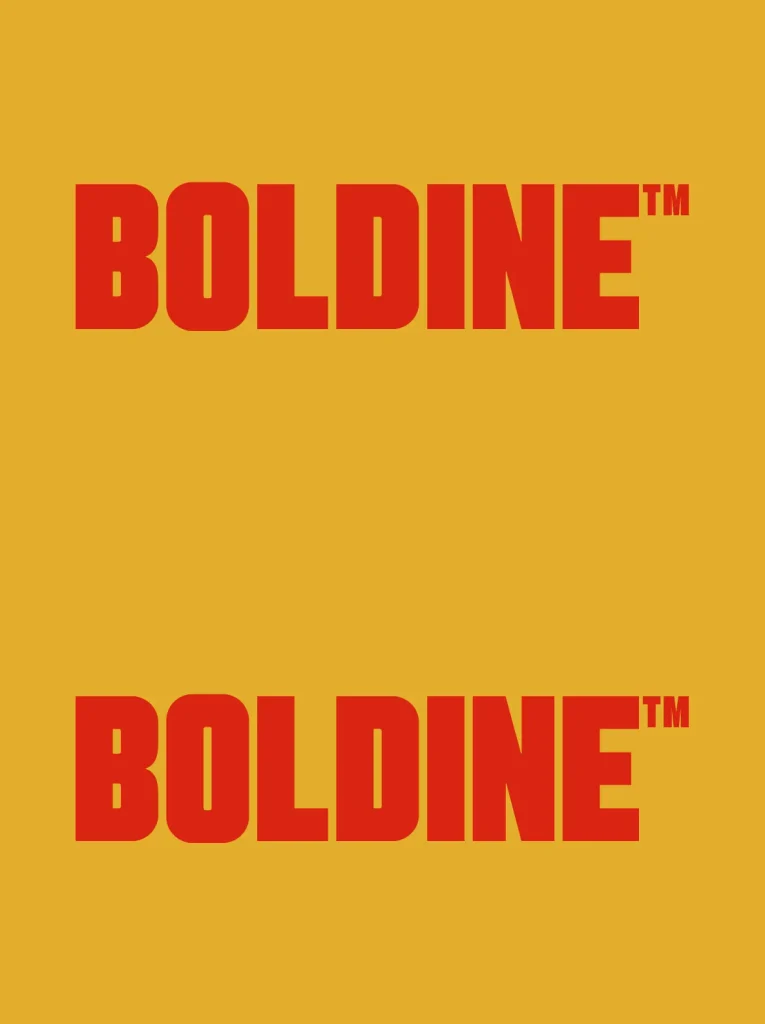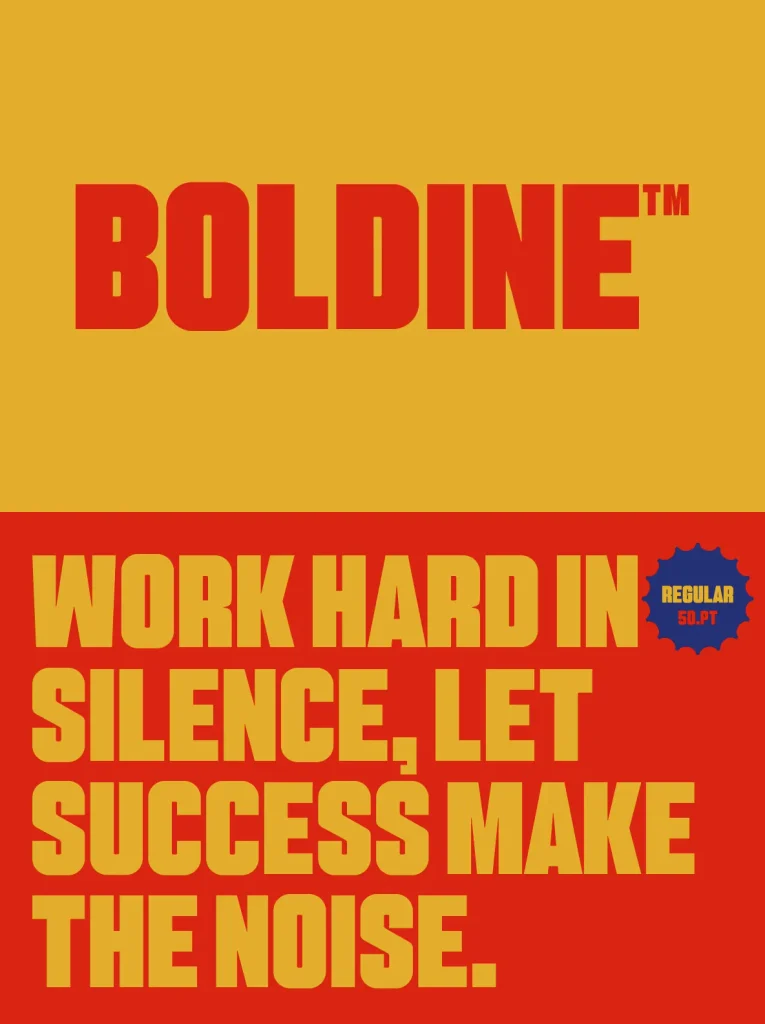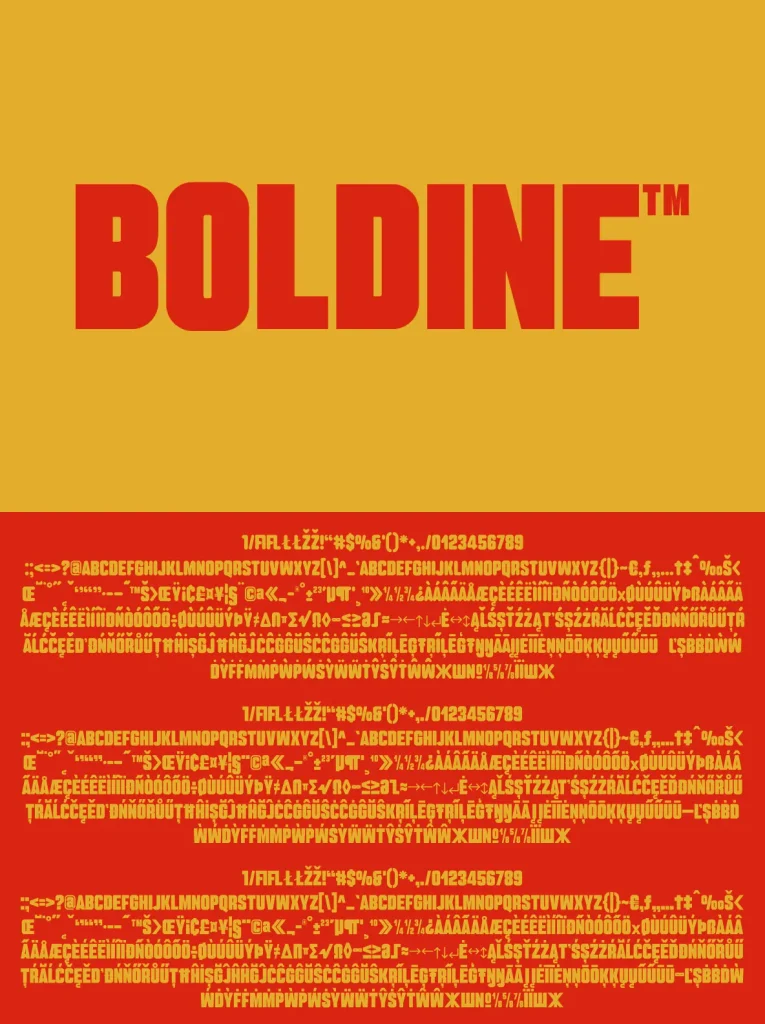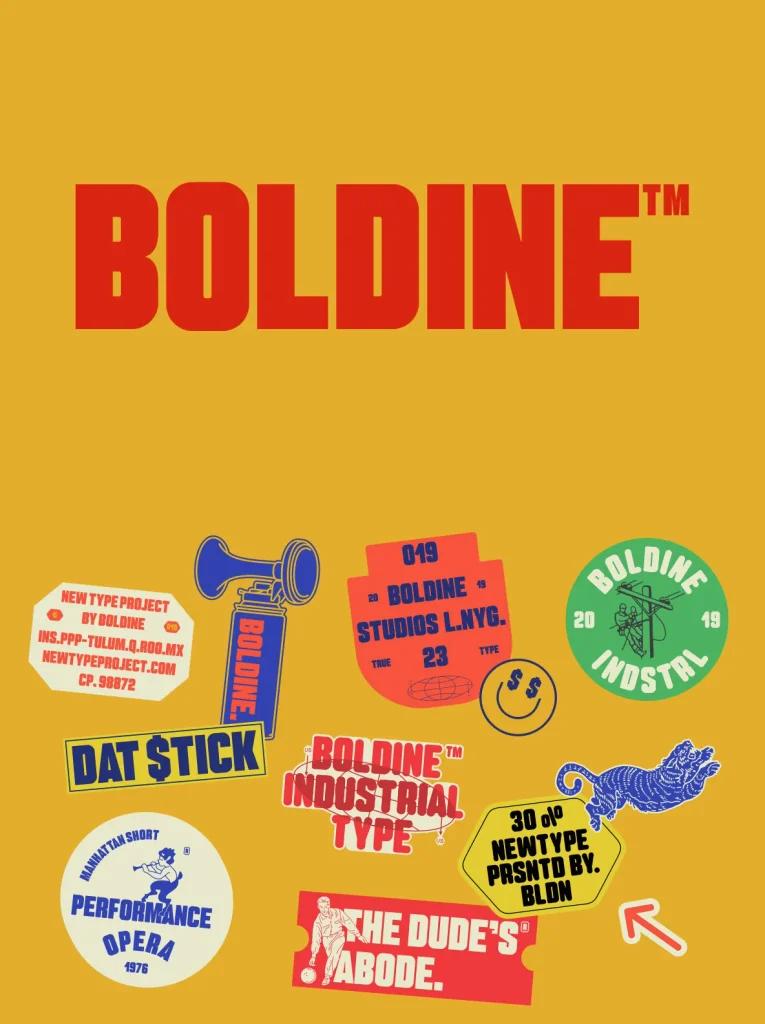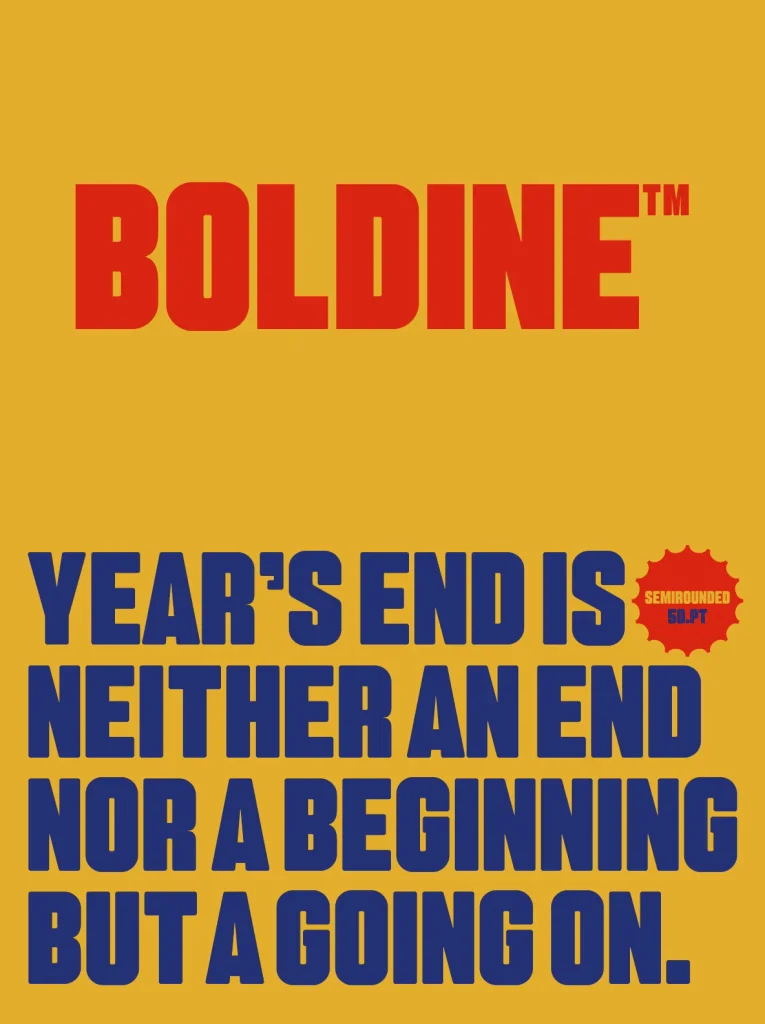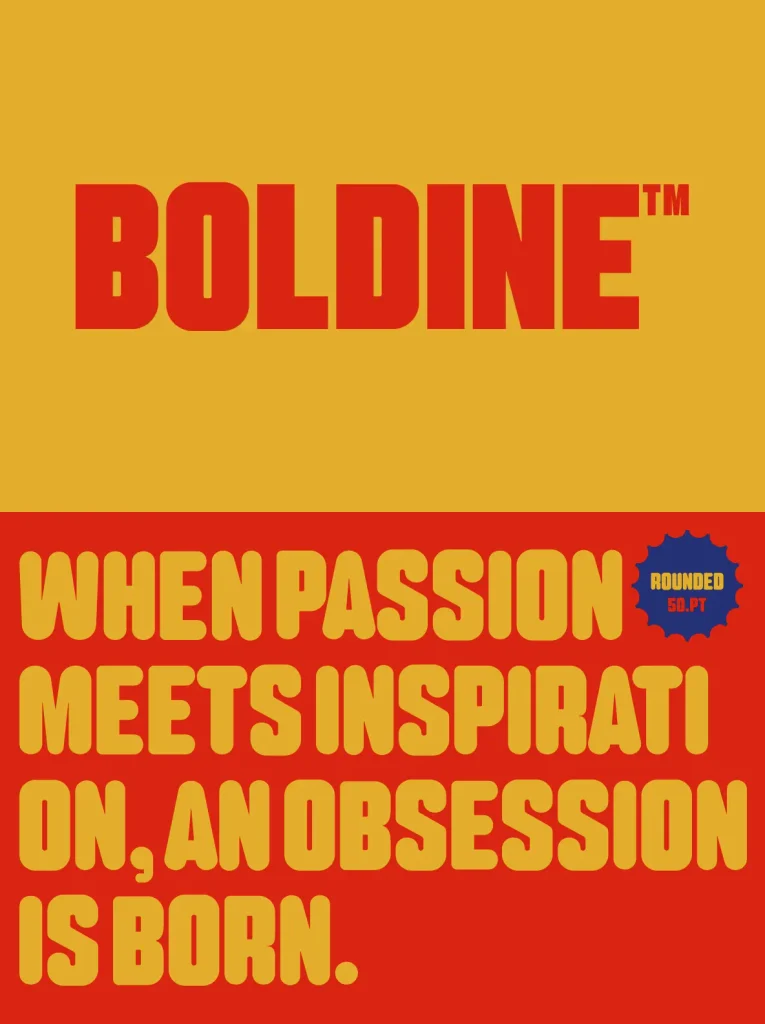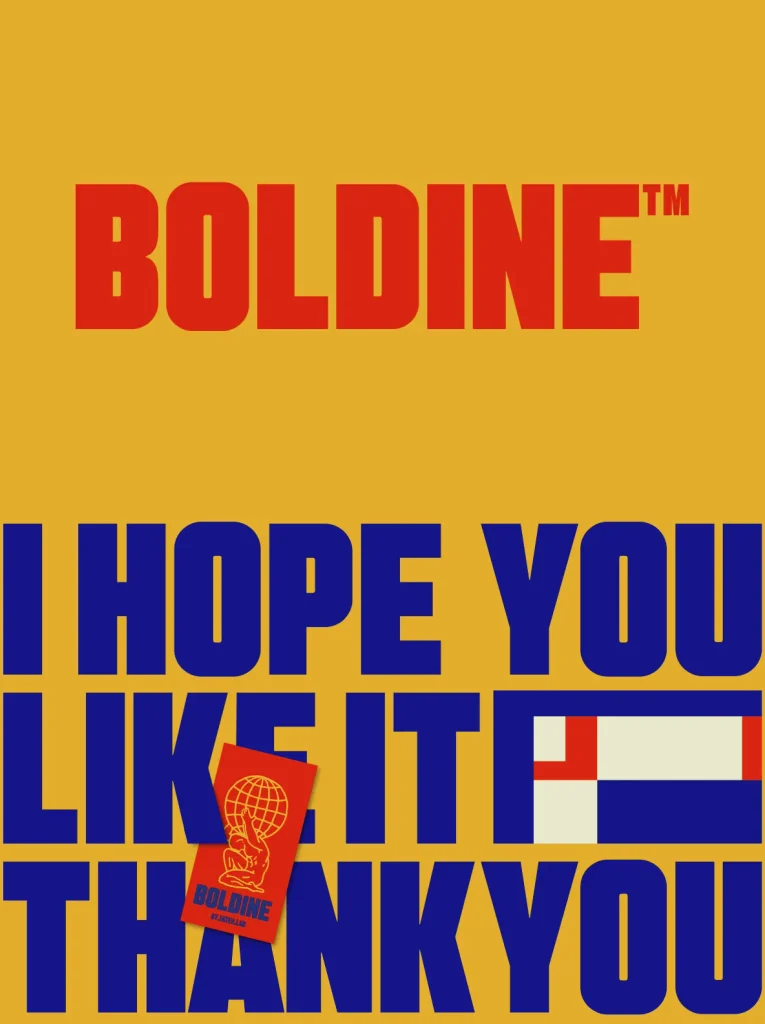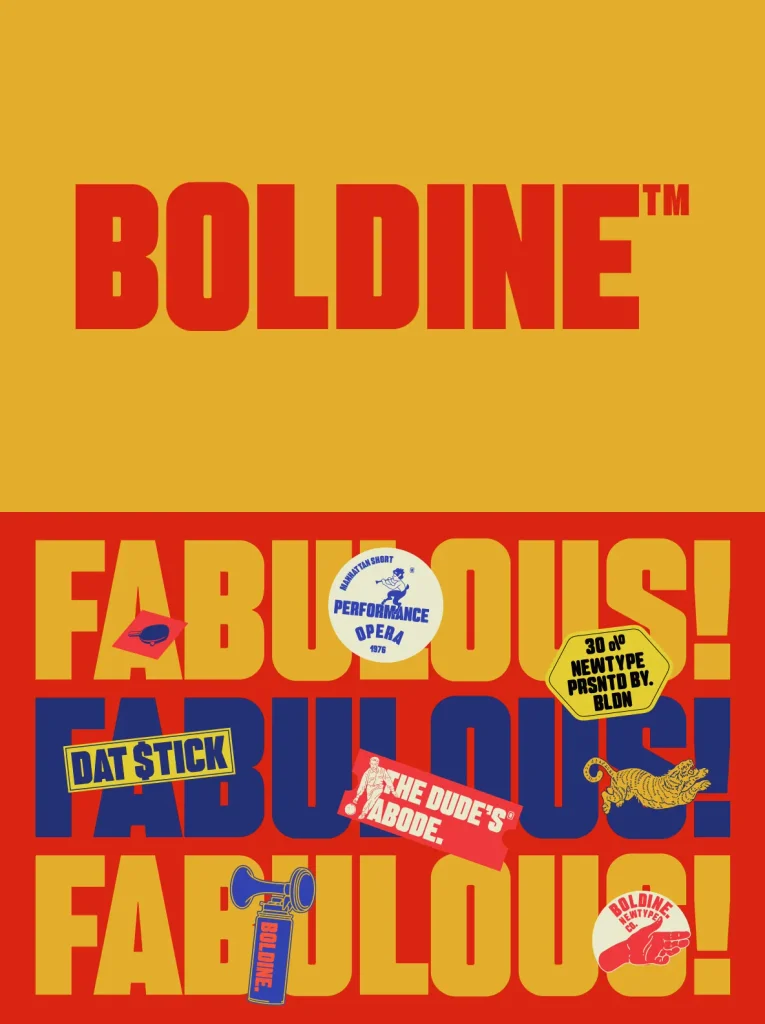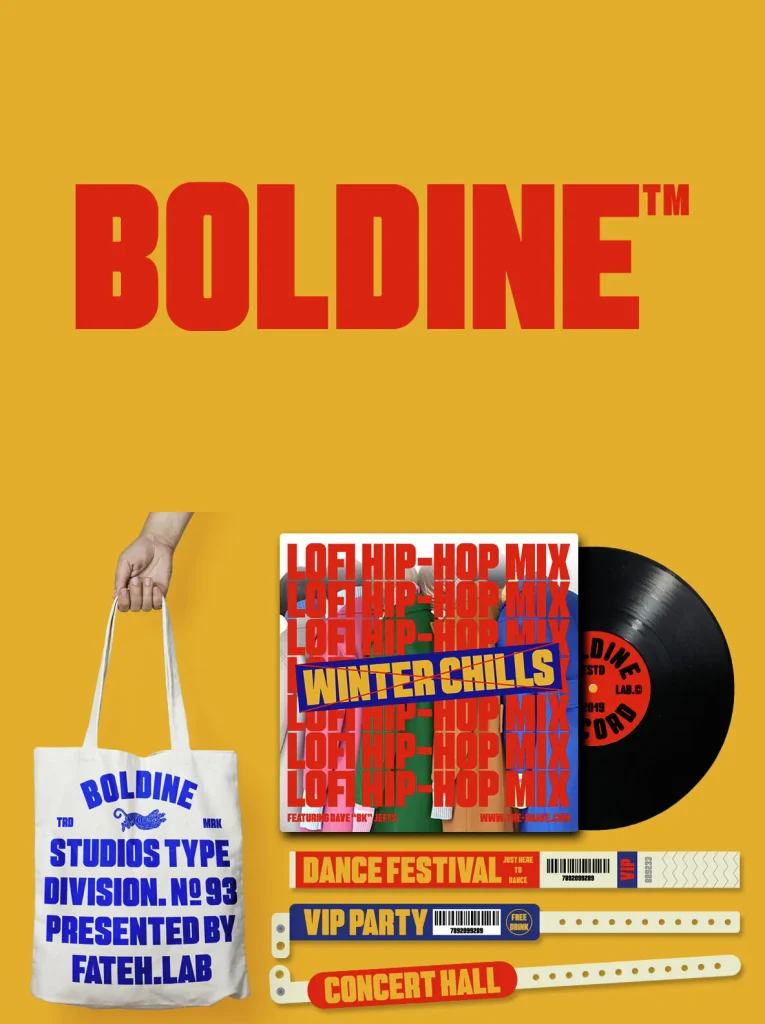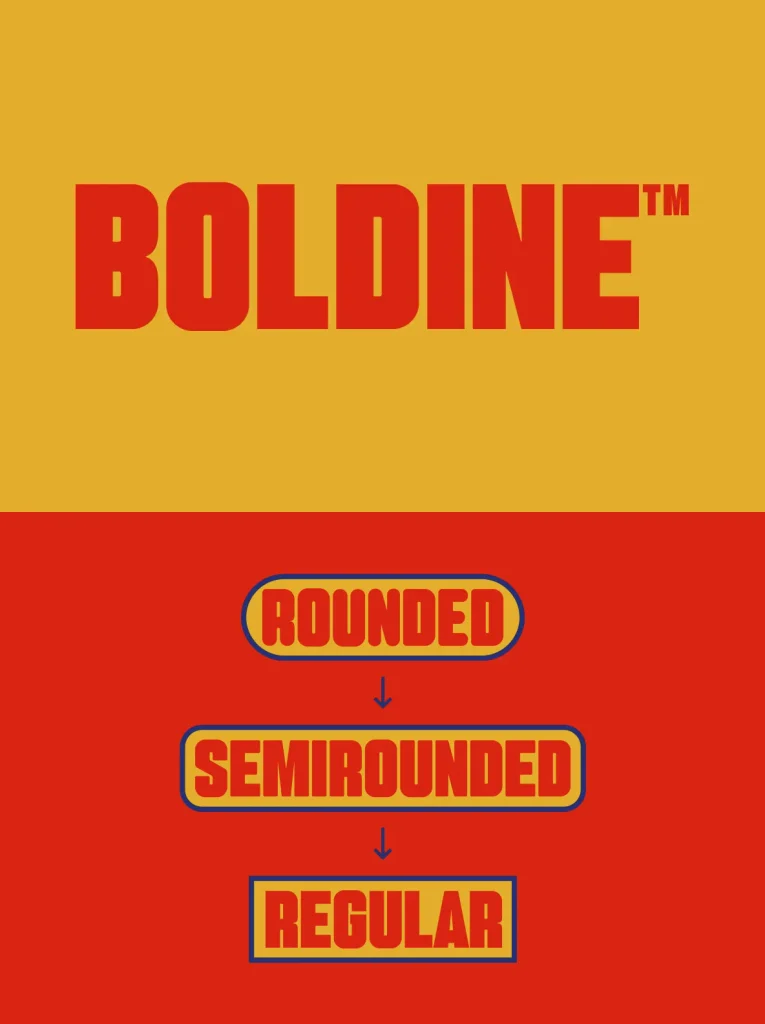
Boldine Font
Boldine: Modern Impact, Editorial Confidence
A robust display serif built for impact and clarity, this typeface brings a confident presence to contemporary visual identities. Its substantial weight and well-defined letterforms read cleanly in high-contrast layouts, making it a strong choice for posters, editorial pages, and digital banners. Designers who want headline typography that feels assertive without losing refinement will find it easy to place across branding and campaign work.
Boldine performs best in large-scale settings where visibility and readability matter. The bold character supports modern aesthetics while staying focused on clear communication, whether you’re setting a hero headline, a cover line, or a bold typographic for social media. Designed by Fateh.Lab, it suits creative professionals who need a display font that looks decisive in print and on screen.
Features
Strong, solid strokes for high visual impact
Elegant proportions suited for modern design trends
Optimal readability, even at larger sizes
Works effectively in headlines, posters, social media graphics, and large-format prints